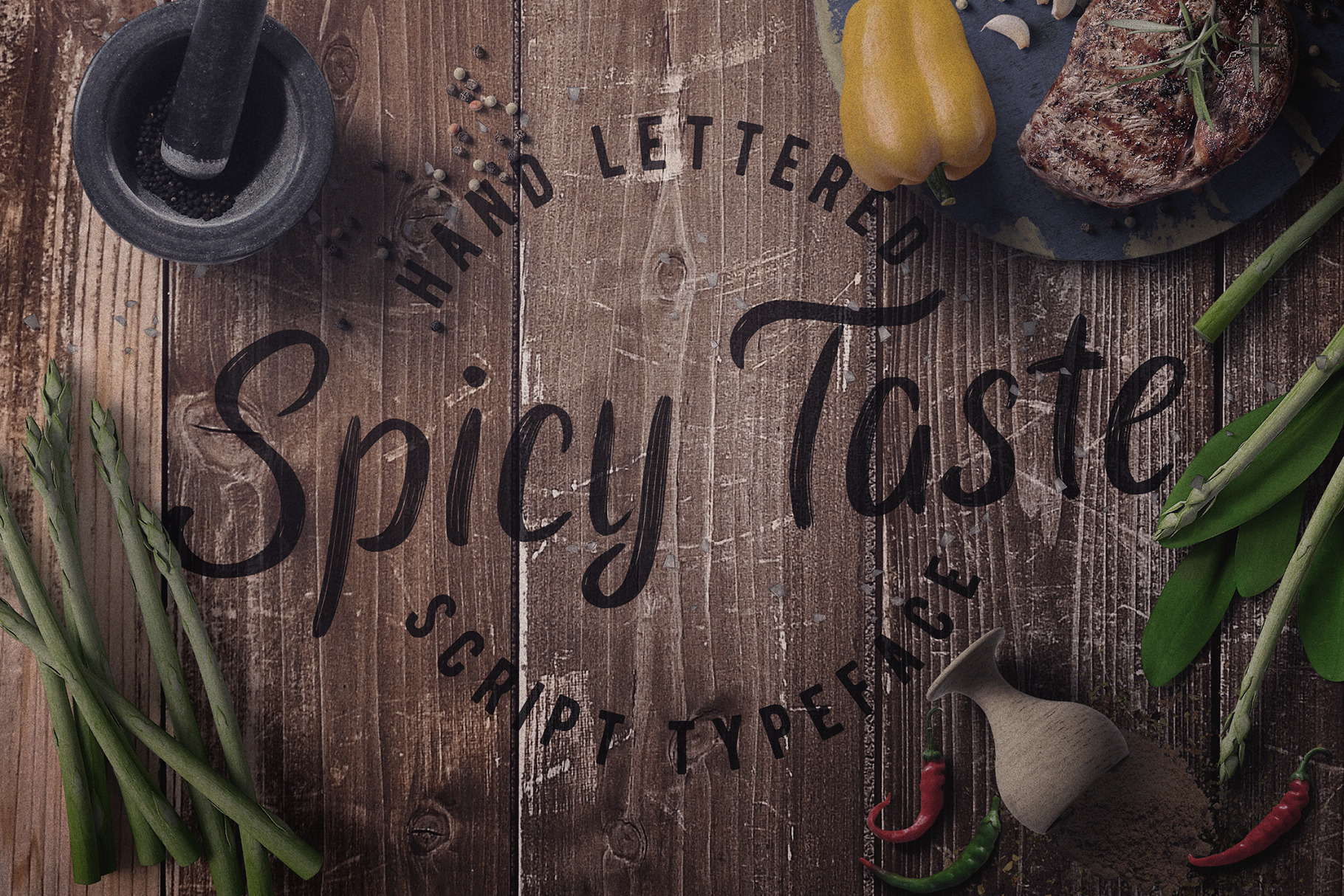
Spicy Taste typeface
Introducing a new script label typeface named Spicy Taste. This typeface contents caps and small letters, numbers, punctuation signs and some alternates for small letters. This is a handwritten brush font with authentic dry brush strokes like drawn on paper. Font format: OTF, TTF, WOFF and WOFF2.